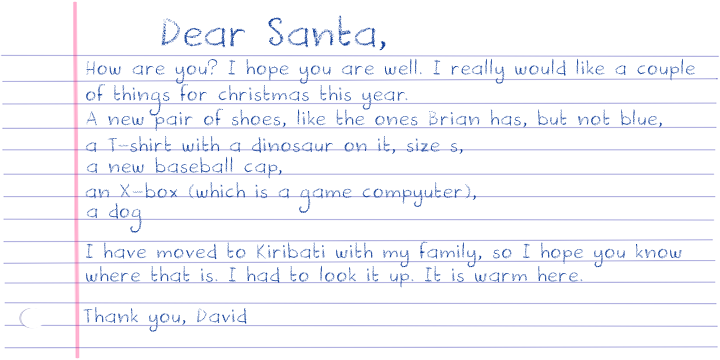
• Crayonista
Crayonista is a very useful, very nice typeface, made entirely with crayons. Because I used very hi-res scans of my crayon doodles, the font has a unique authenticity to it: the glyphs are eroded, grainy, almost lifelike. Because of the immense detail, Crayonista will behave sluggish in text editors, so be patient!
Crayonista comes with extensive language support.